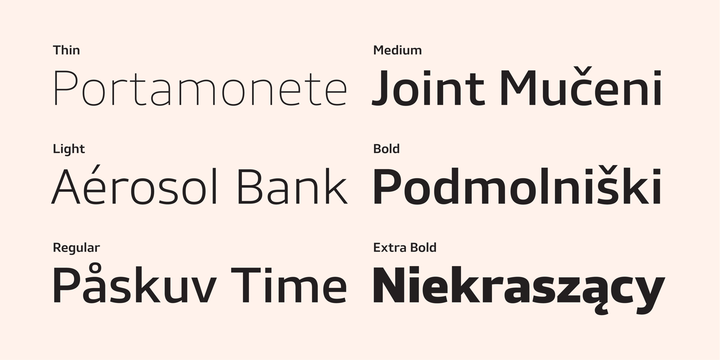
Stratus
by Marc Foley
Stratus is a neutral sans-serif family, consisting of six weights. The design is heavily influenced by '90s screen fonts.
It has been tested and developed using a range of different operating systems and web browsers. You'll find it works incredibly well at small sizes and user interfaces.